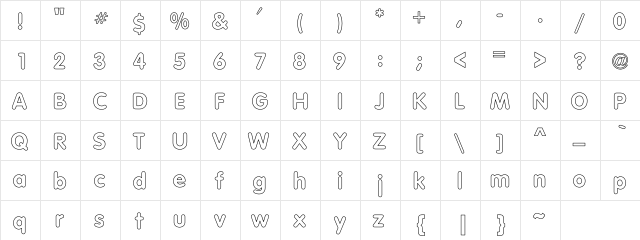
Simmons Empty Regular
Design Context for Simmons Empty Typeface
Simmons Empty takes a measured approach to typography — its balanced proportions and neutral character make it a reliable workhorse for both digital and print work.